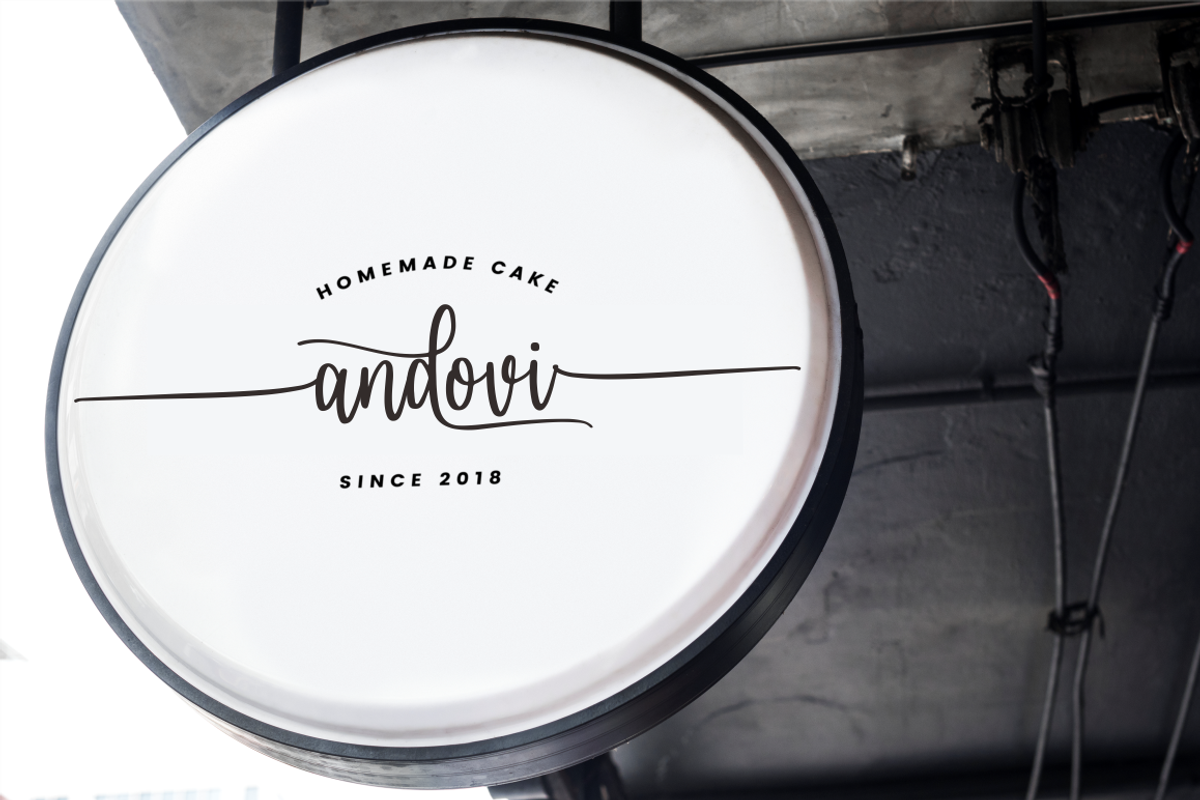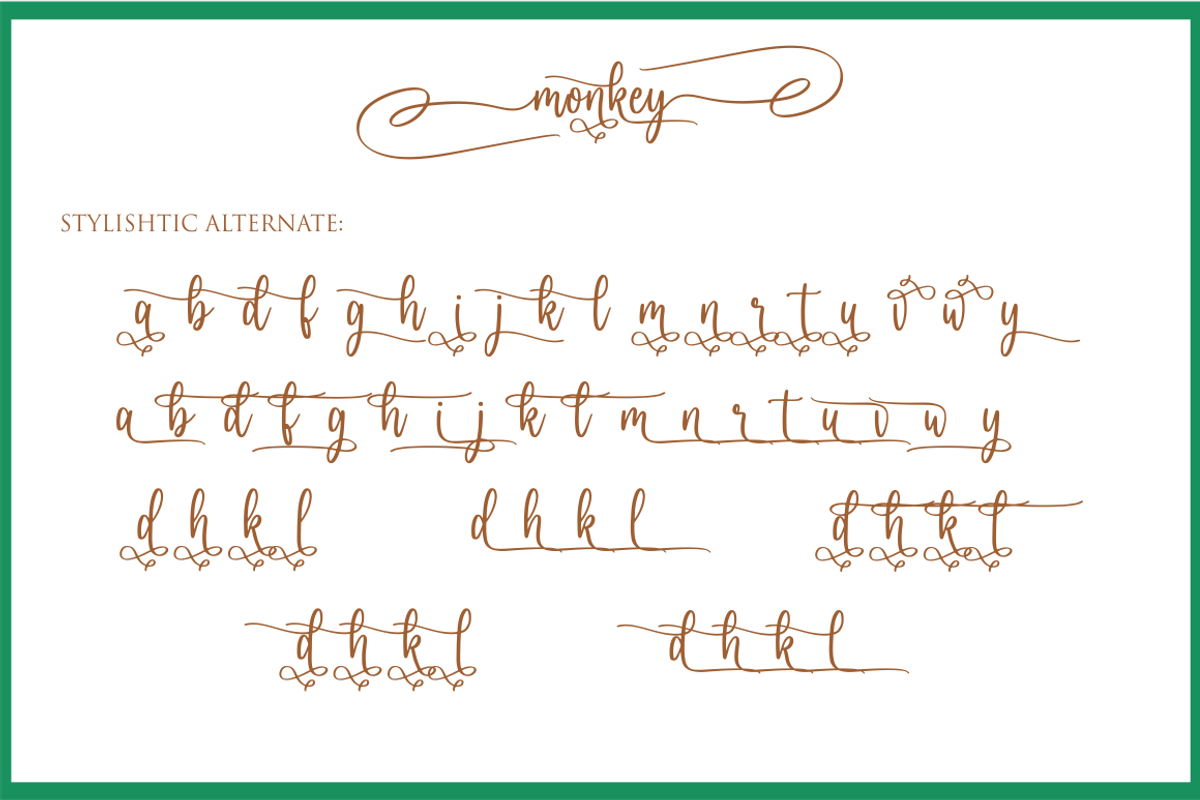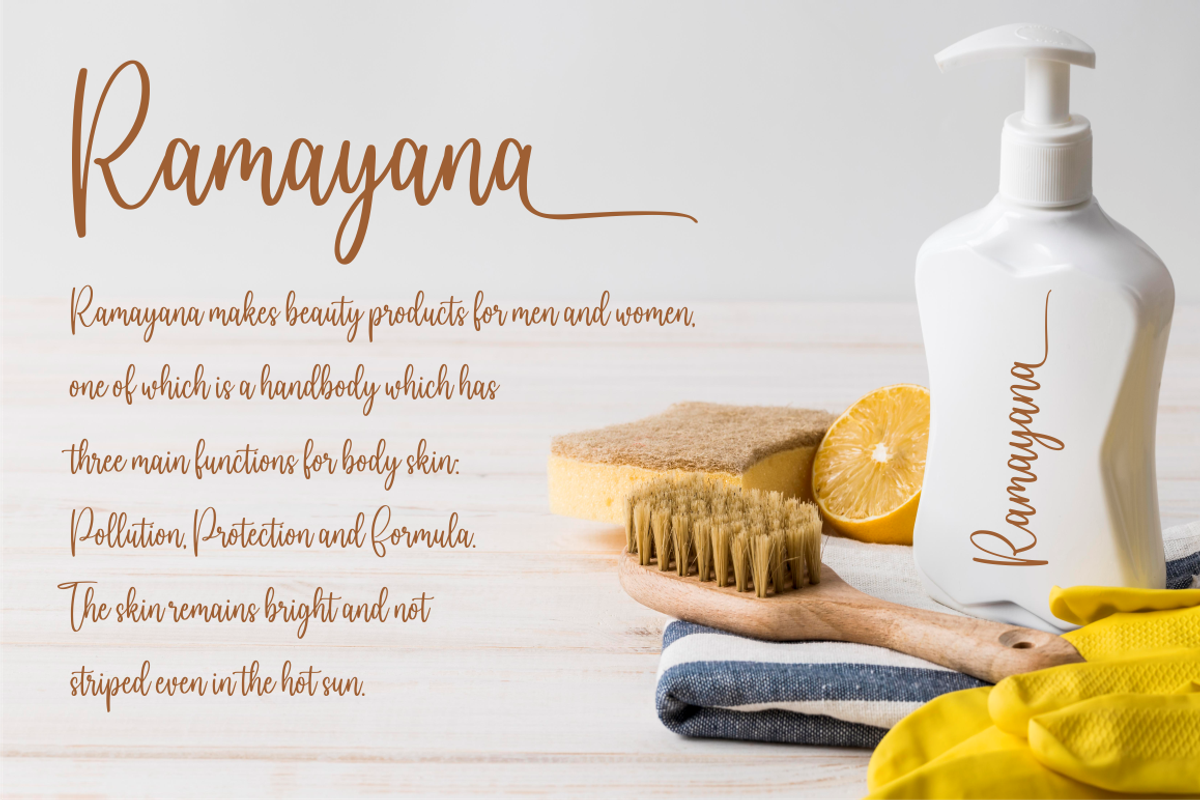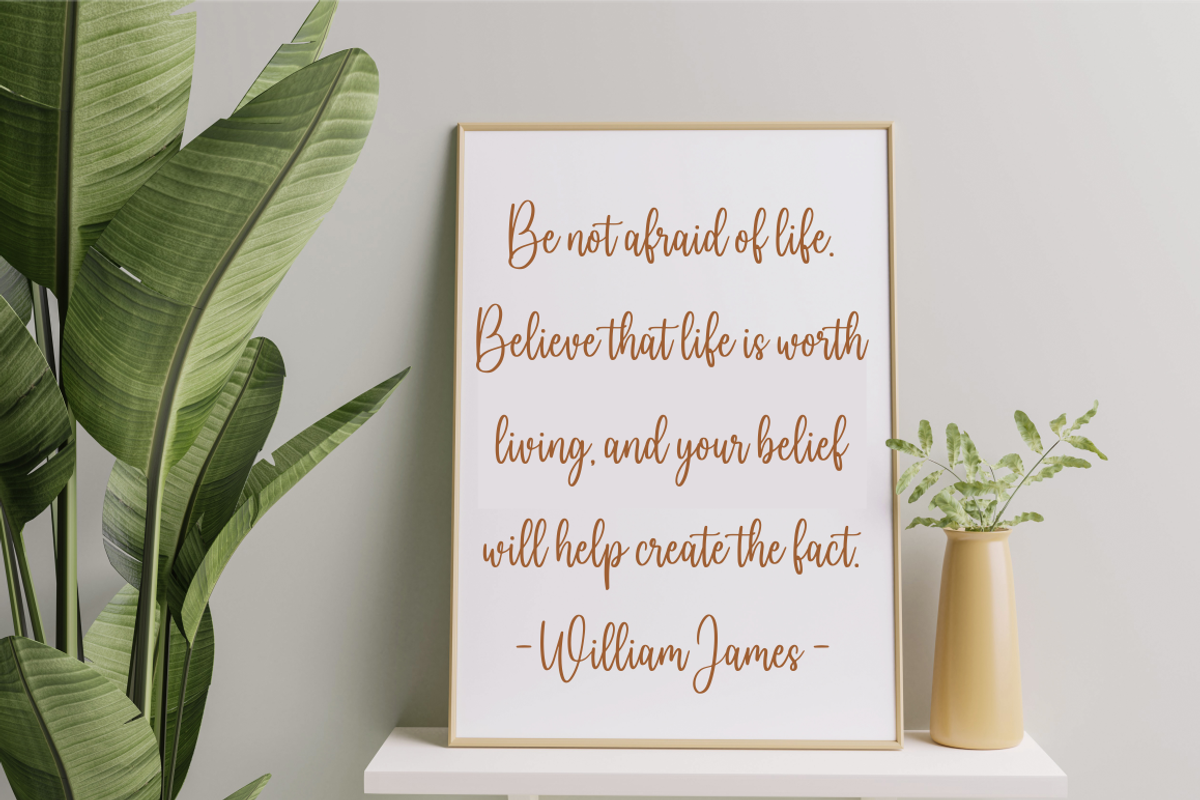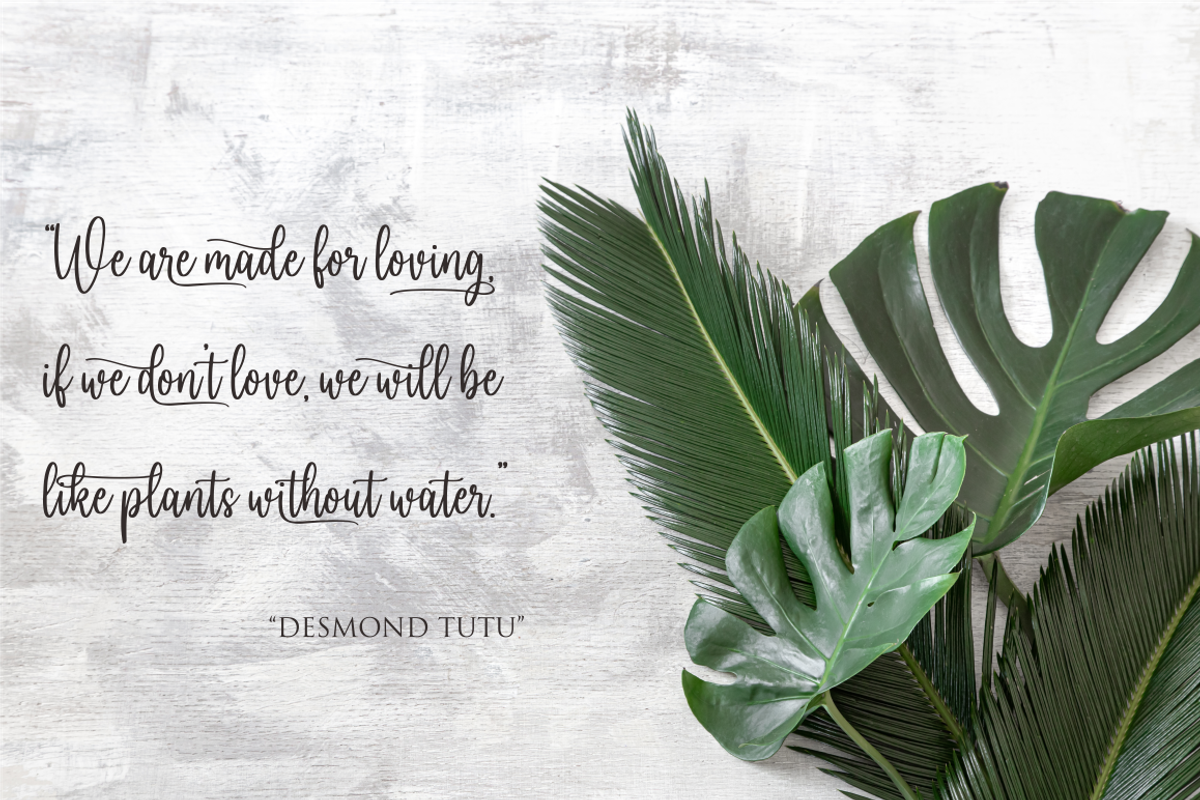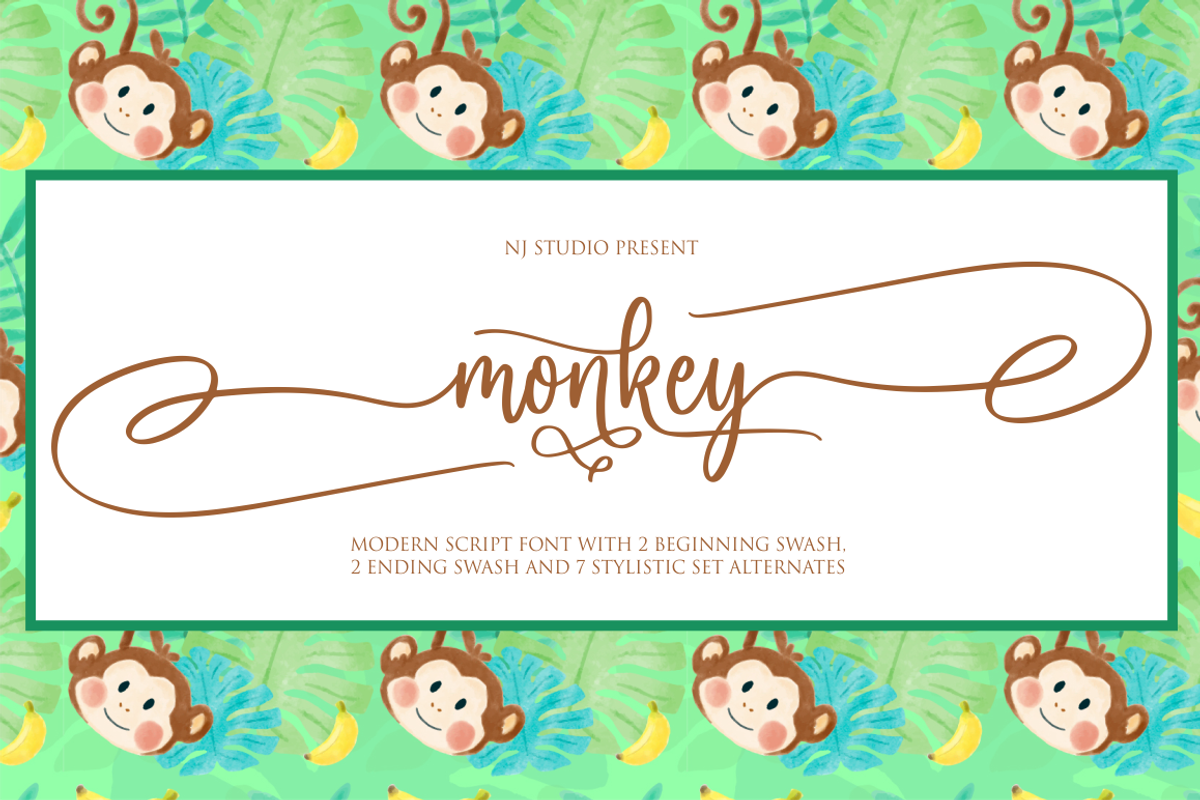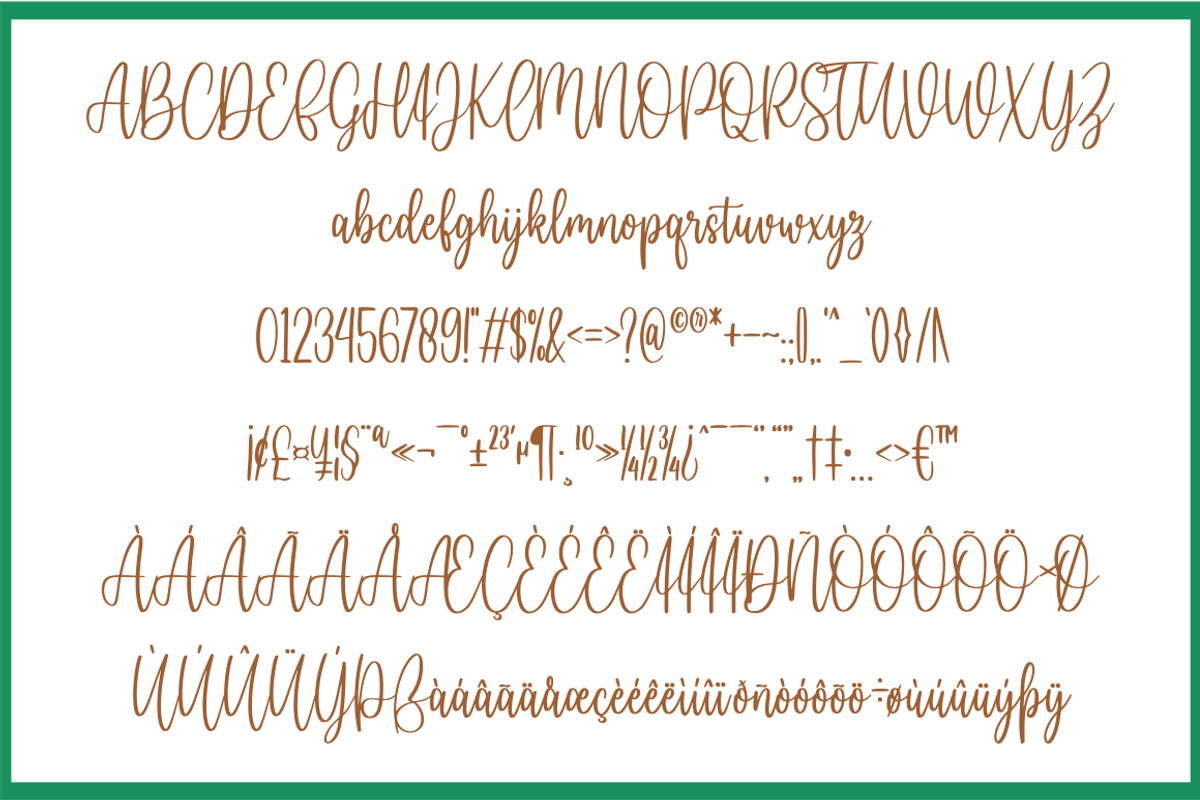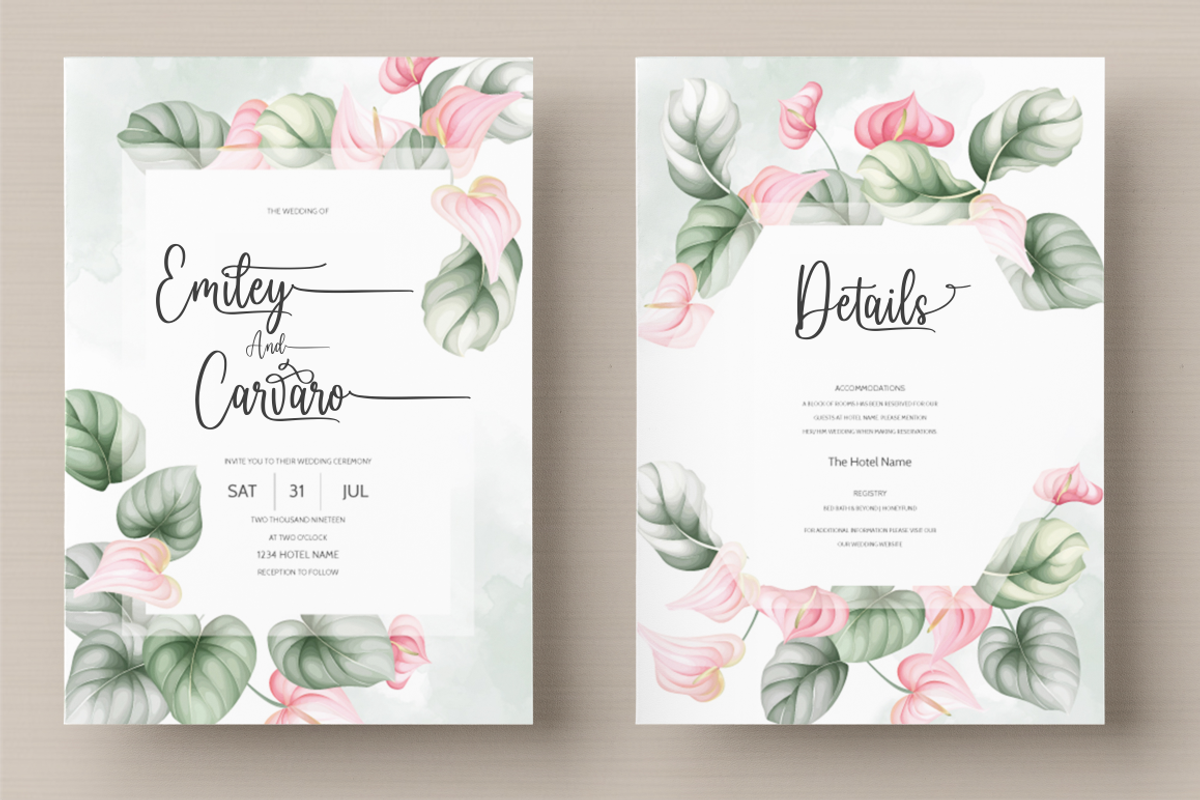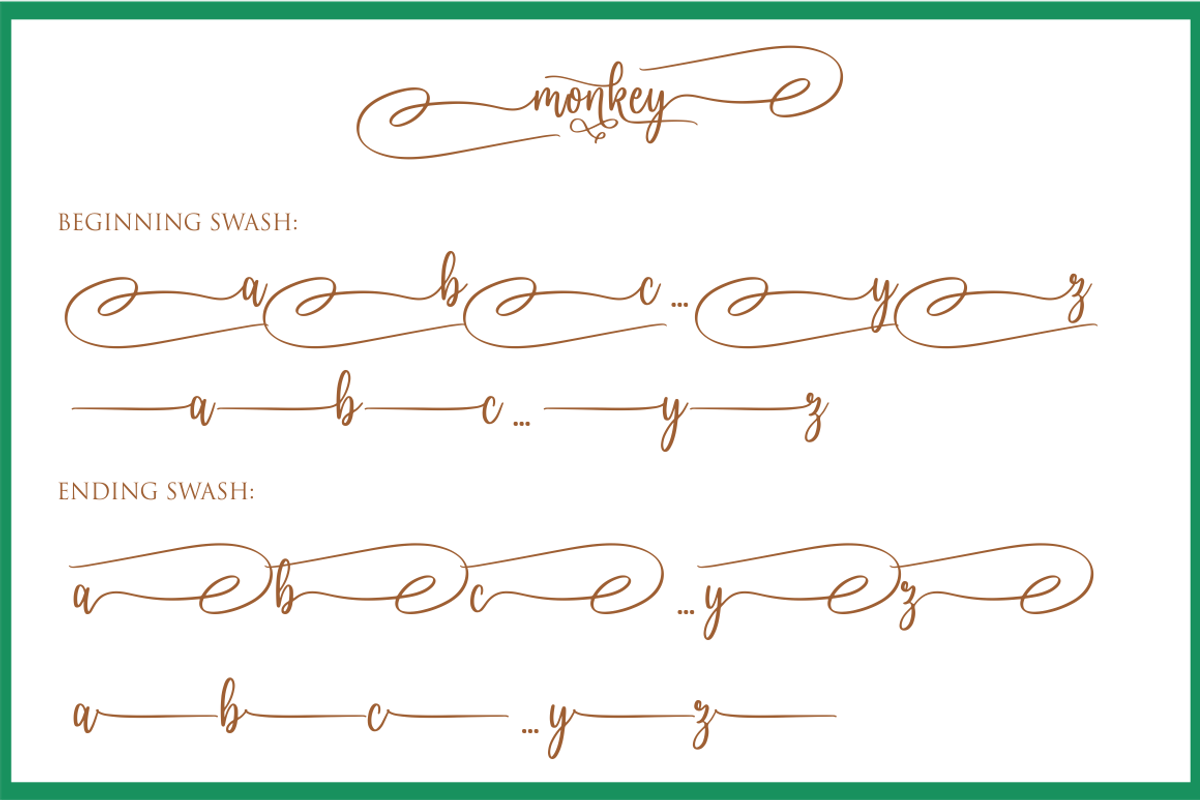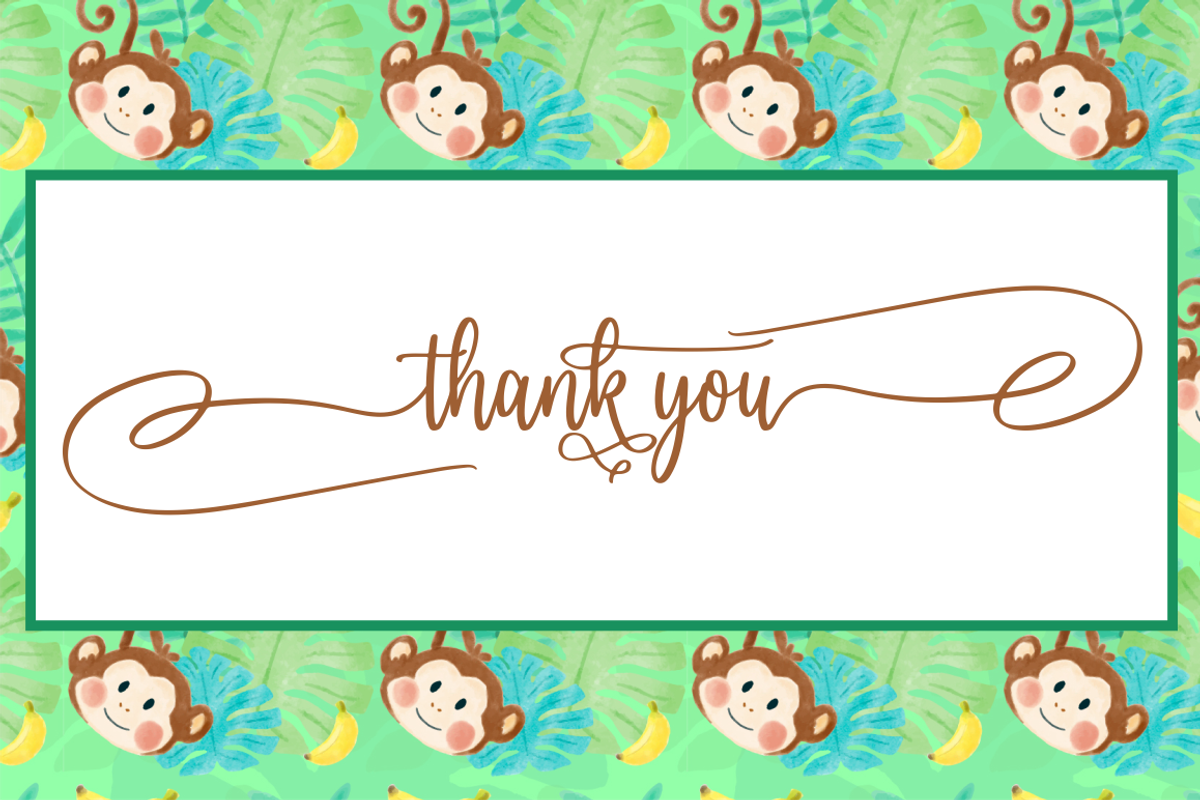
monkey
monkey a script font. It features 2 beginning swash, 2ending swash and 7 stylishtic set alternate characters that will take your projects to the next level!
This font is PUA code which means you can easily access all the glyphs and swashes that are full of swash! It also features many special features including glyphs. font designs that are made for various vector designs, printing such as digital wedding blogs, online shops, social media, while printing can be used in the field of product clothing, accessories, bags, pins, logos, business cards, watermarks and many others ...
so it can make your product look cute and attractive, and also Multilingual support!!!